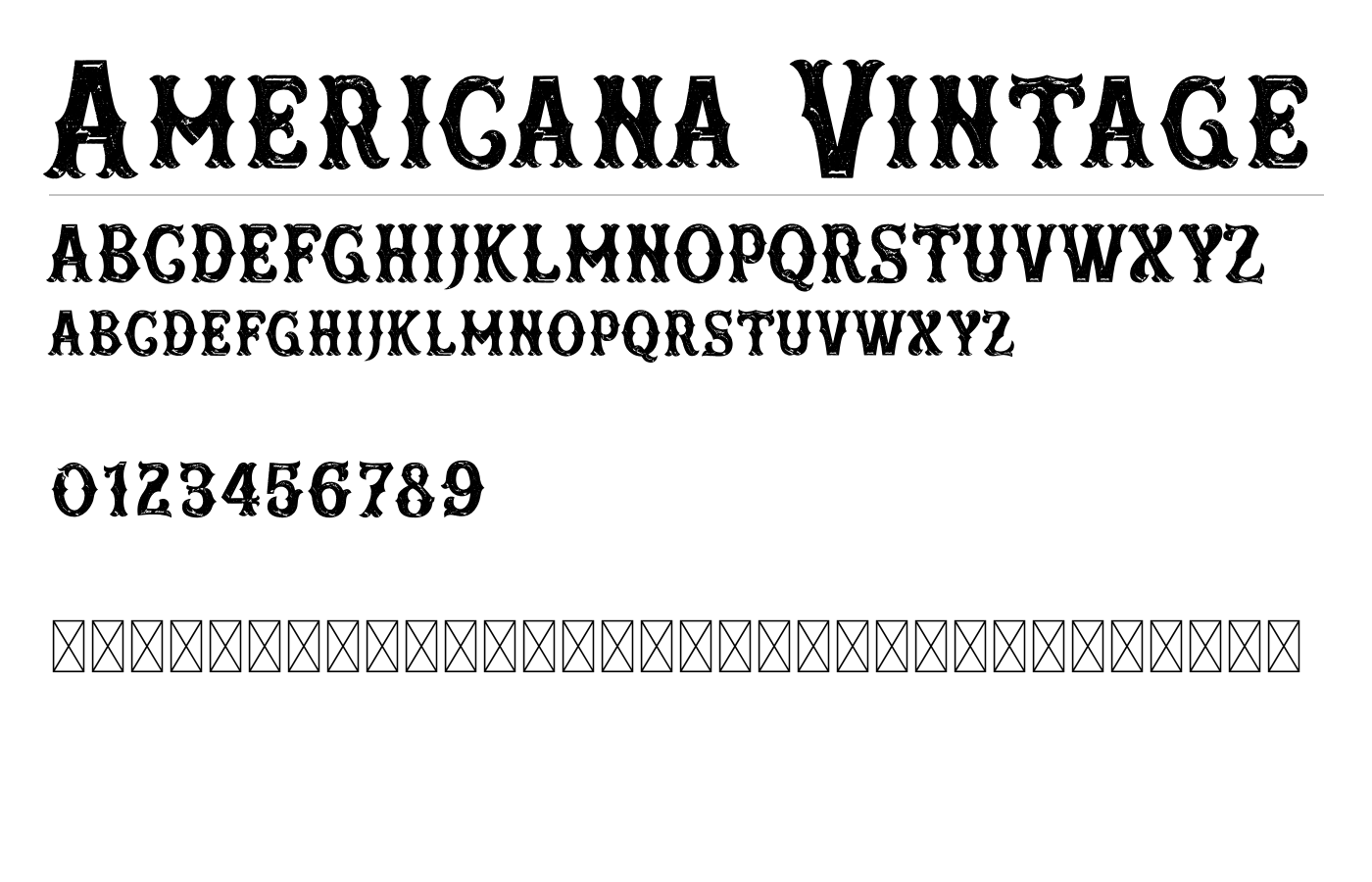
Americana Vintage is a bold, decorative serif font with a strong vintage Western flair, featuring thick, textured strokes and intricate, ornamental serifs. Its design evokes a rugged, nostalgic feel perfect for projects seeking an authentic old-fashioned or rustic American look, making it ideal for logos, posters, and branding with a vintage or Western theme.
Americana Vintage Font